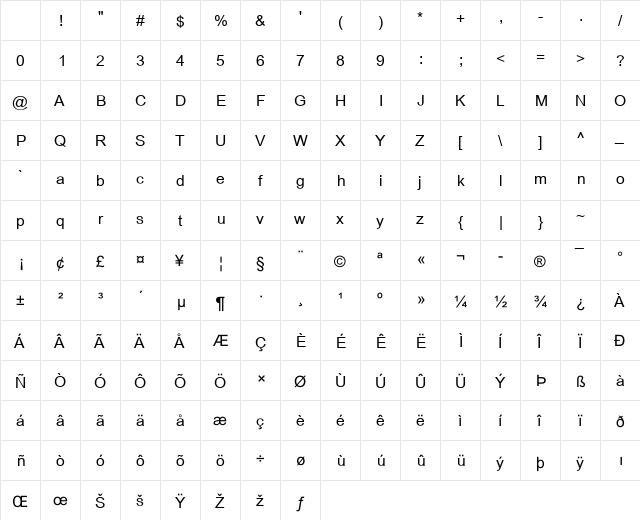
Browallia New Regular
Complete Browallia New Regular glyph index. Displaying only characters natively supported by Browallia New Regular font.
Design Context for Browallia New
Browallia New is a composed and adaptable typeface that performs quietly and consistently across a wide range of design contexts.